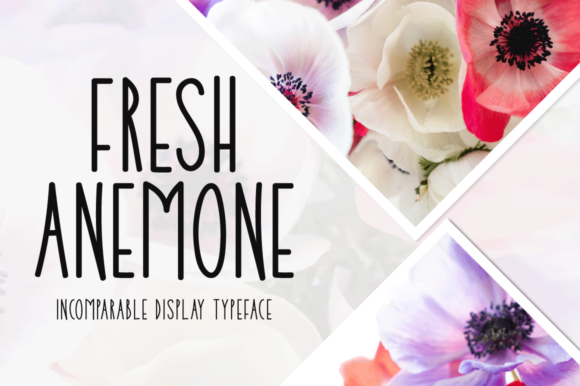
Introducing Fresh Anemone Font, the playful and enchanting display font that will bring a burst of joy to your creative endeavors! Each letter dances with a whimsical charm, adding a touch of delightful magic to your designs.
With its adorable and endearing style, Fresh Anemone is the perfect choice for script writing, greeting cards, posters, and any project seeking a whimsical touch. Unleash your imagination and watch as your words transform into captivating expressions of joy.
Crafted with meticulous care by Seemly Fonts, Fresh Anemone features a full range of glyphs and ligatures, accessible with ease through PUA encoding. Open up a world of creative possibilities and let your designs flourish with laughter and playfulness.
Fresh Anemone is not just a font – it's an invitation to let your imagination soar and create designs that spark joy and captivate hearts. Join the ranks of satisfied users who have discovered the magic of Fresh Anemone and elevate your creative game to new heights of wonder and delight!